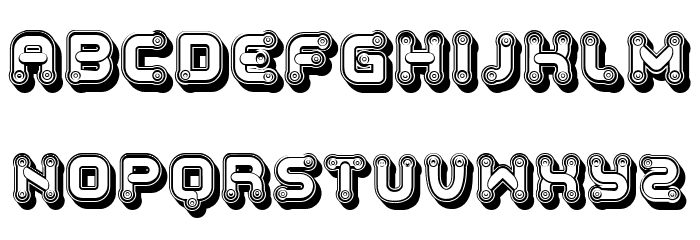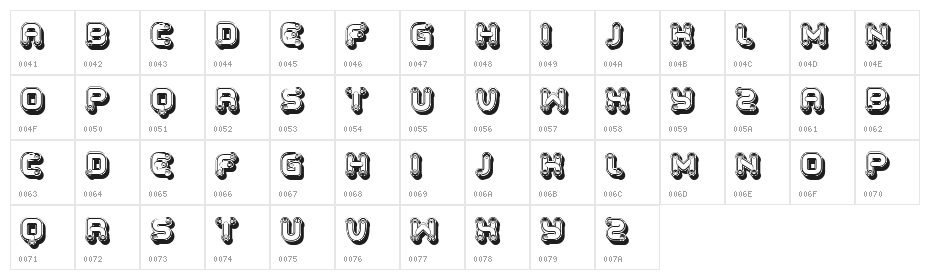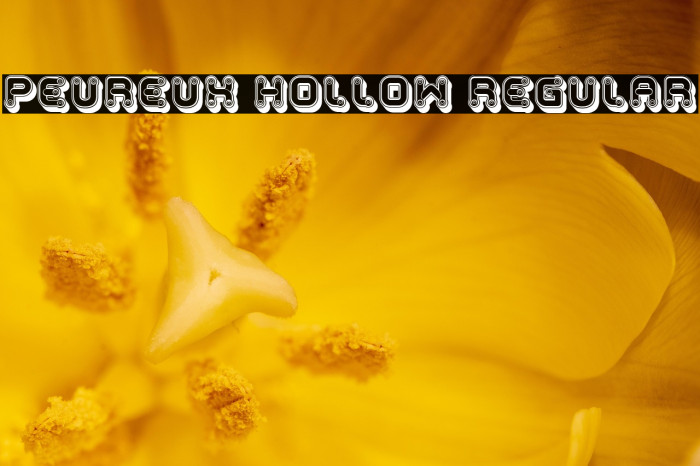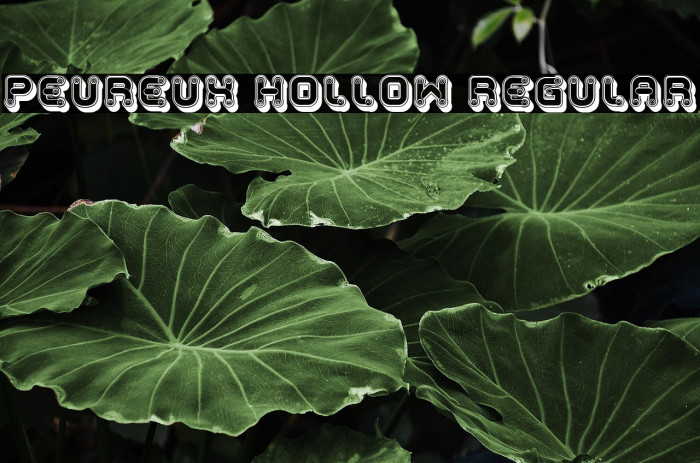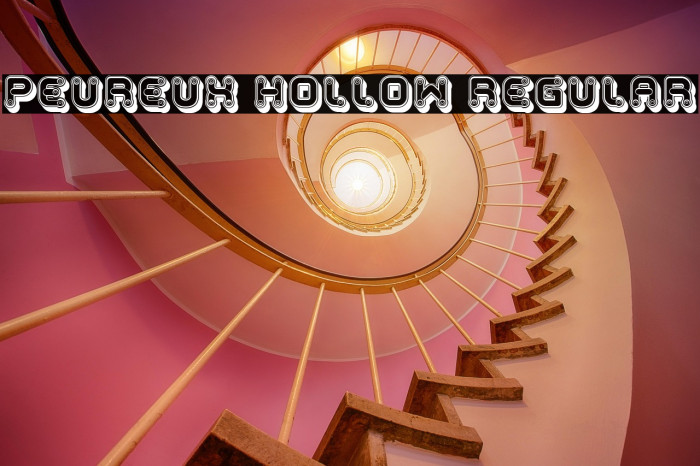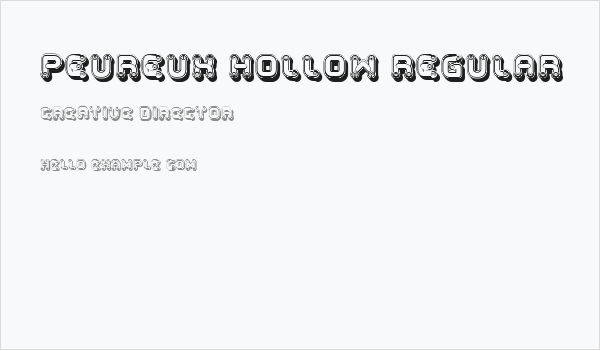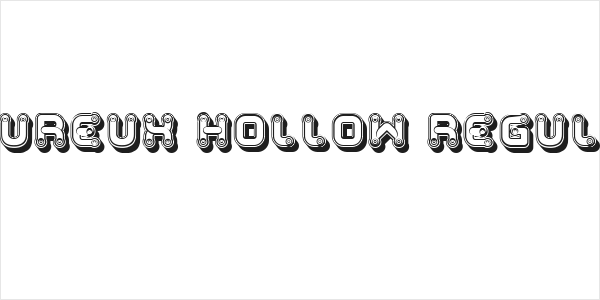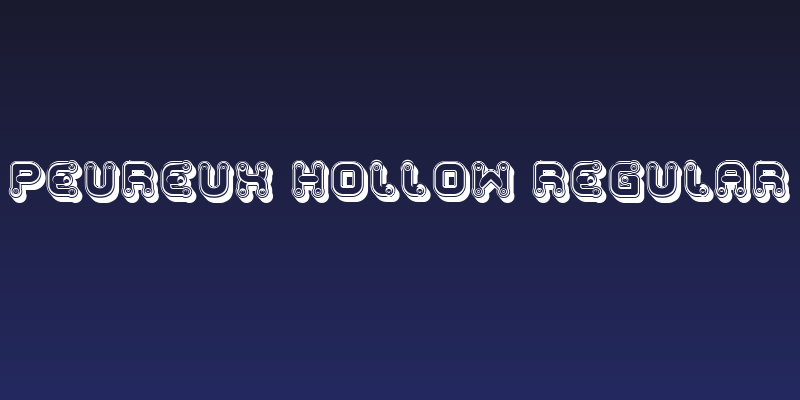
Peureux Hollow Regular Font
Peureux Hollow Regular Description
This font features a bold, decorative style with a hollow interior and intricate detailing. Each character is outlined with a thick, black border, creating a striking contrast against the white space within. The design incorporates circular embellishments and swirling patterns that give it a unique, almost mechanical appearance. The uppercase letters are consistent in height and width, while the lowercase letters maintain a similar style, ensuring uniformity across the text. The numbers and special characters follow the same design principles, making them easily recognizable and visually appealing. This font is ideal for projects that require a bold statement or a distinctive visual identity.
| Proposed Projects | Ideal for posters, logos, branding, and any project needing a bold, eye-catching typeface. |